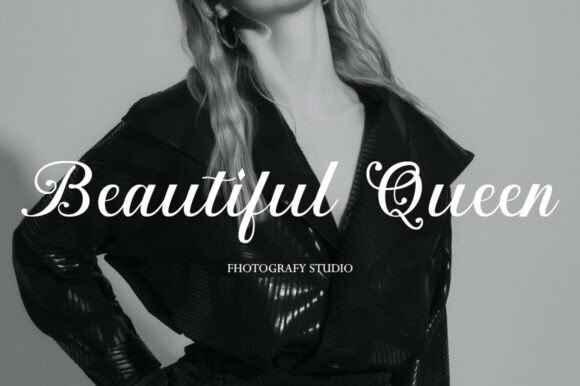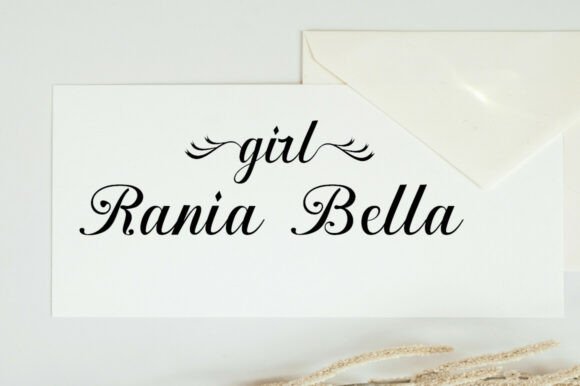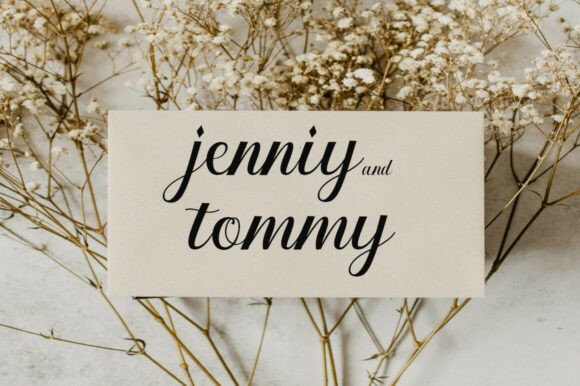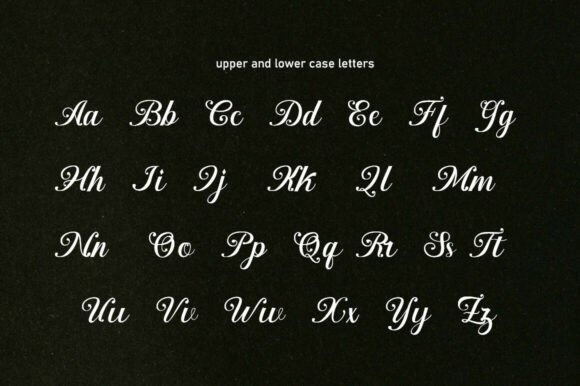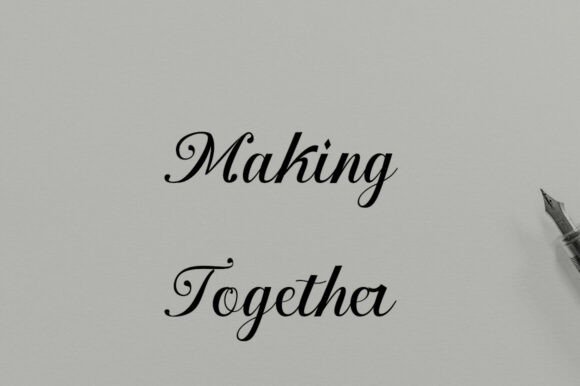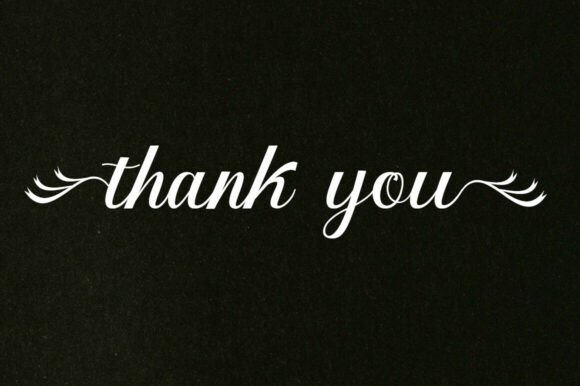
Introduction to Martion Font
Martion Font is a stunning modern script that brings a sense of refined confidence and contemporary flair to every design it touches.
This Martion typeface features elegant, forward-leaning characters with a distinct calligraphic influence, characterized by smooth transitions and sharp, diamond-shaped tittle accents that give it a unique edge It strikes a perfect balance between high-end luxury and modern minimalism, making the Martion font an essential choice for brands that want to convey both movement and sophistication.
Key Features of Martion Font
Why Choose Martion Font?